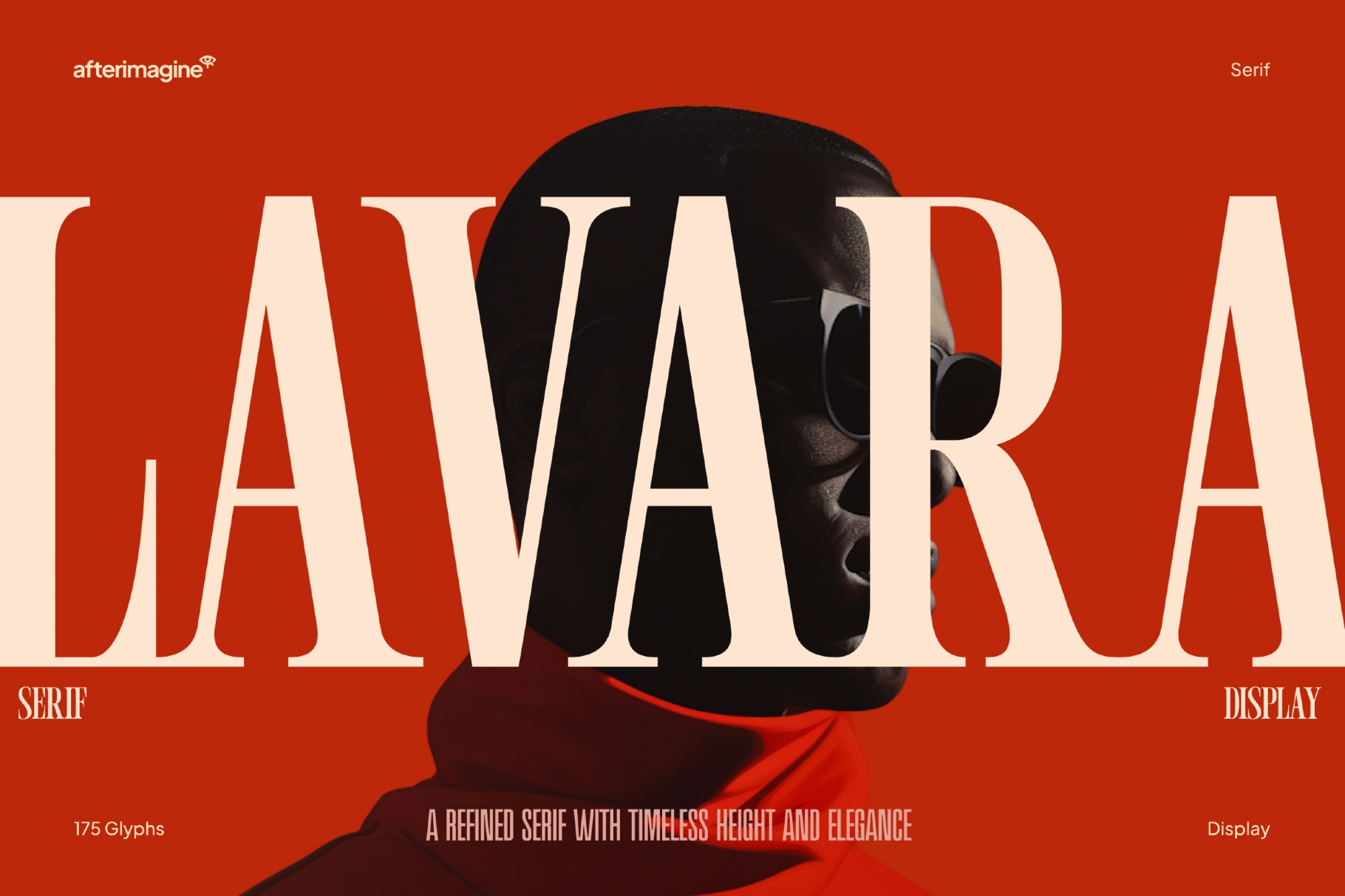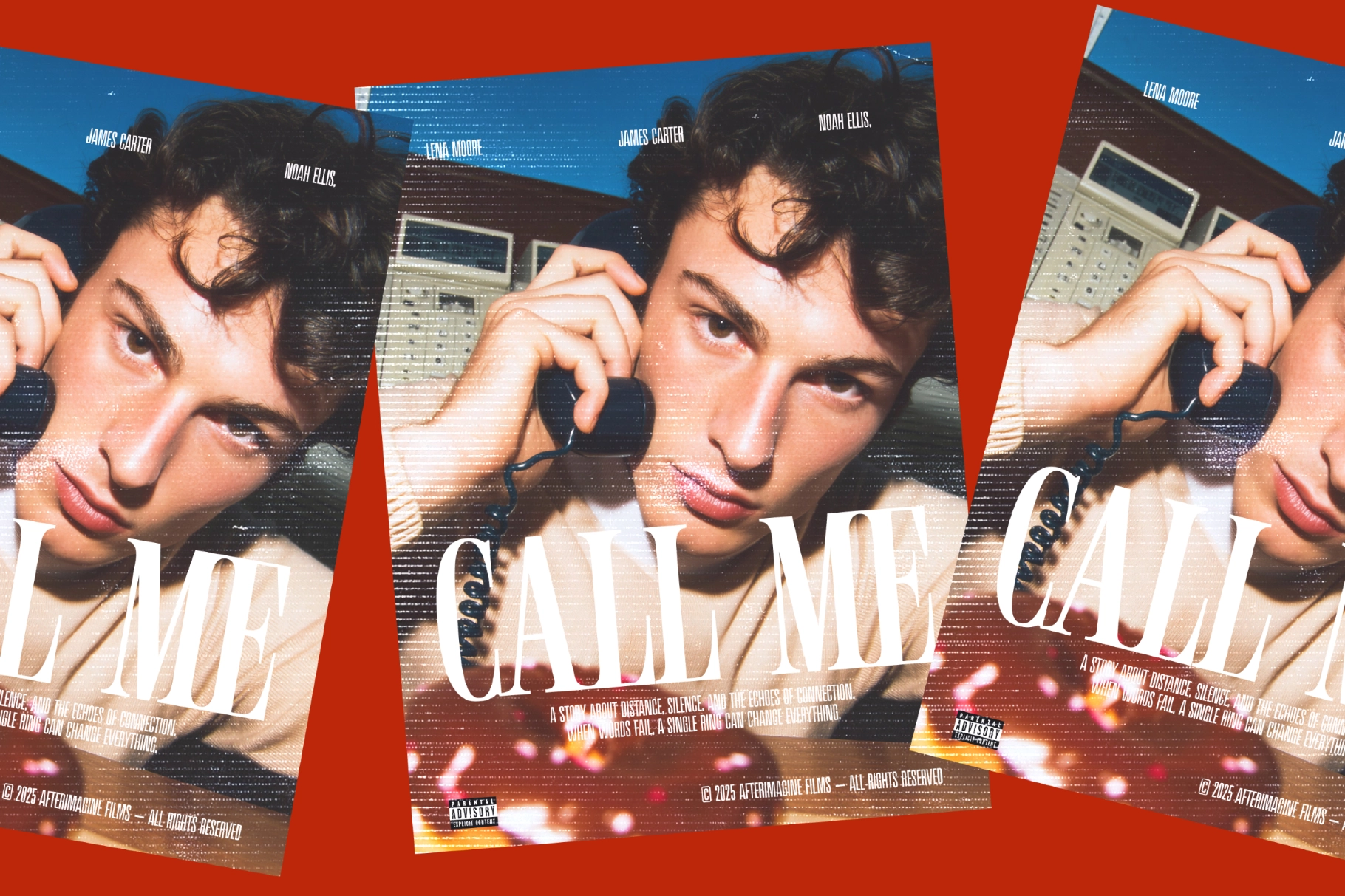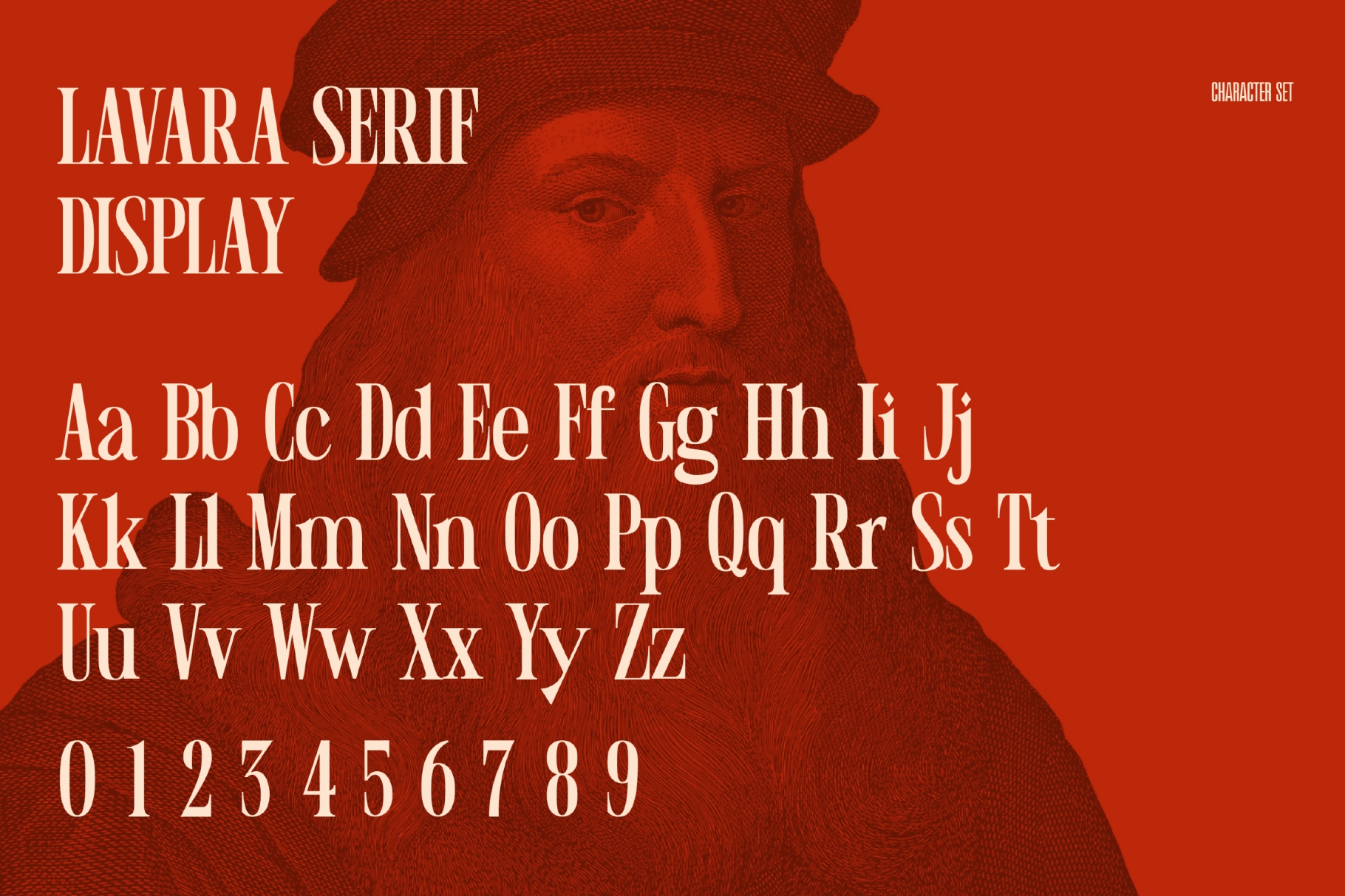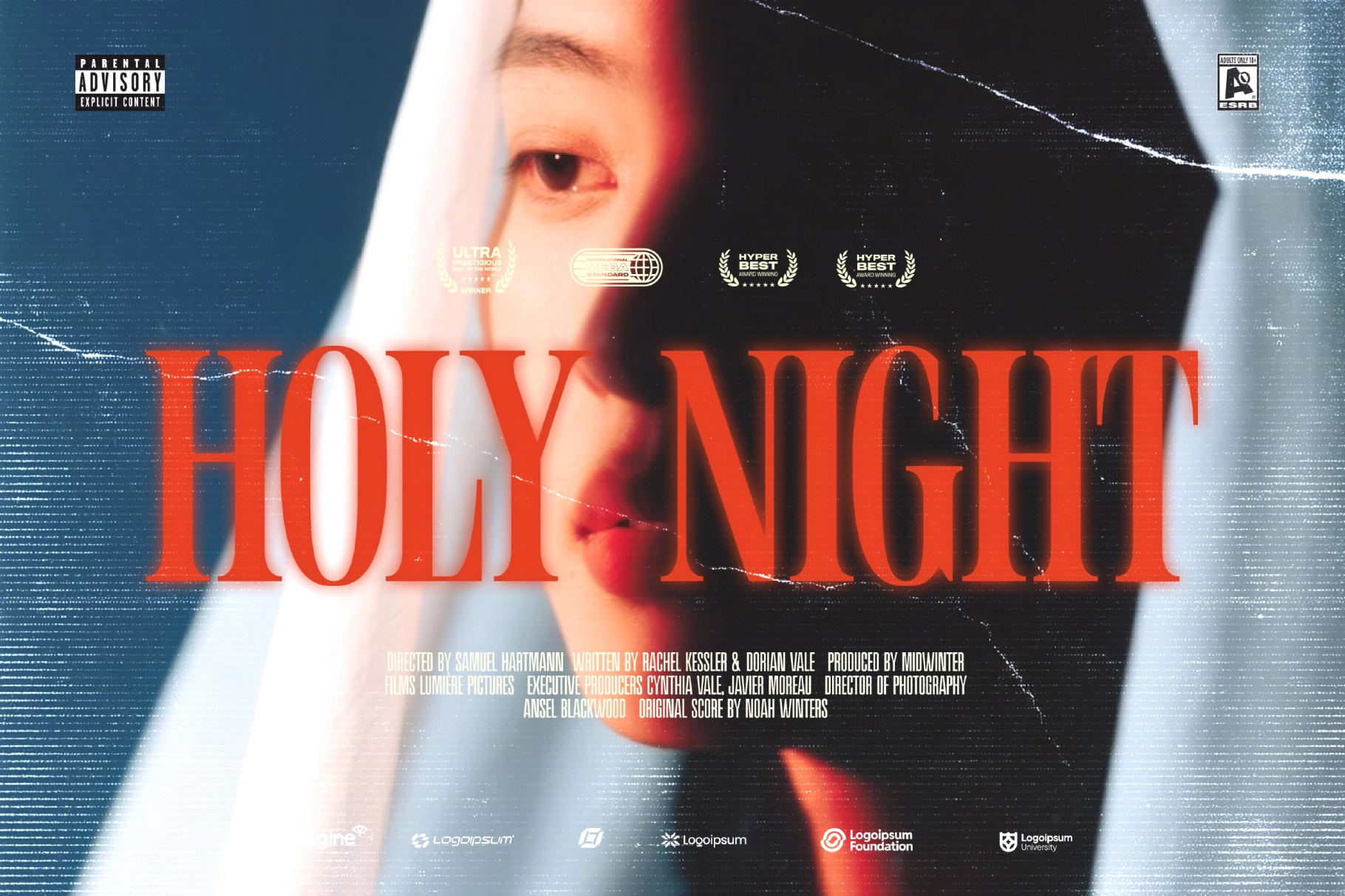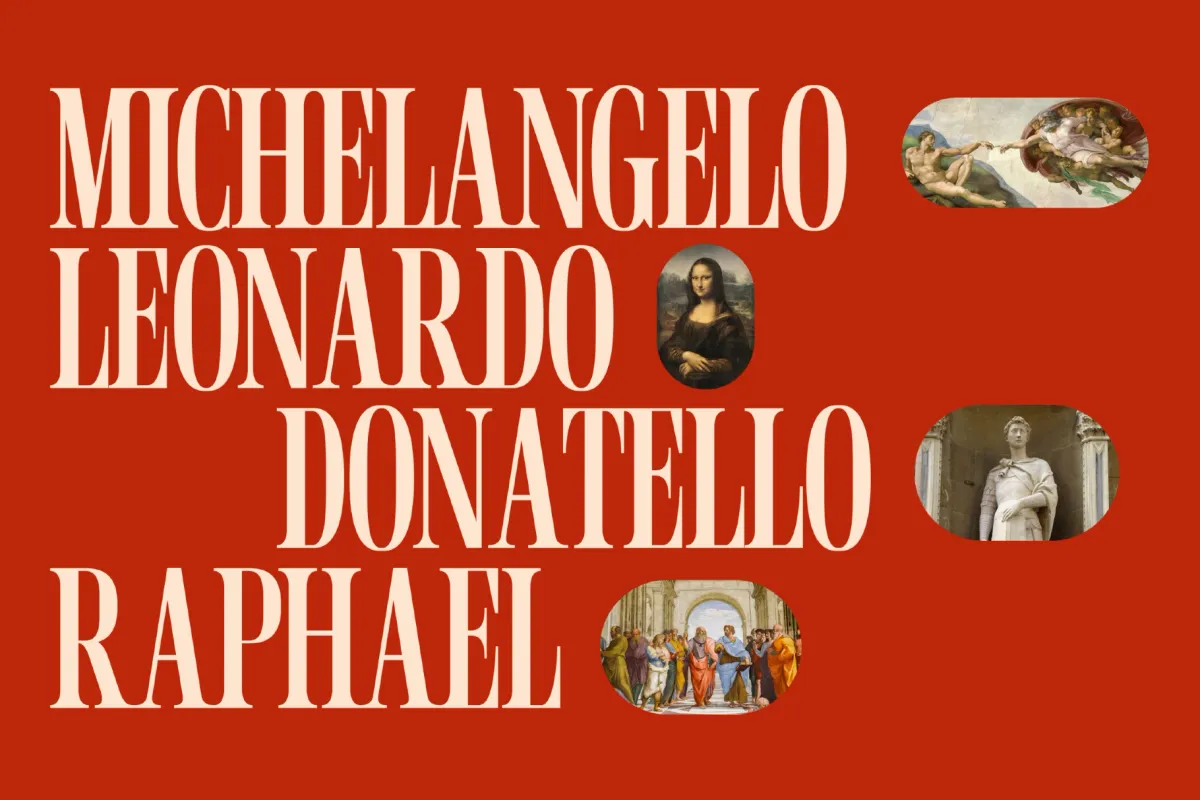
Lavara – Refined Serif Display Font
Lavara is a display serif font crafted with elegant proportions, high contrast strokes, and a bold vertical stance. Ideal for branding, fashion editorials, luxury packaging, or modern magazine layouts, Lavara exudes timeless sophistication with its tall forms and sharp serifs. The font includes supports uppercase, lowercase, numbers, and punctuation. Its refined aesthetic makes it perfect for premium design work that requires a strong yet graceful typographic voice.
• Uppercase & lowercase letters
• Numbers & punctuation
• Multilingual